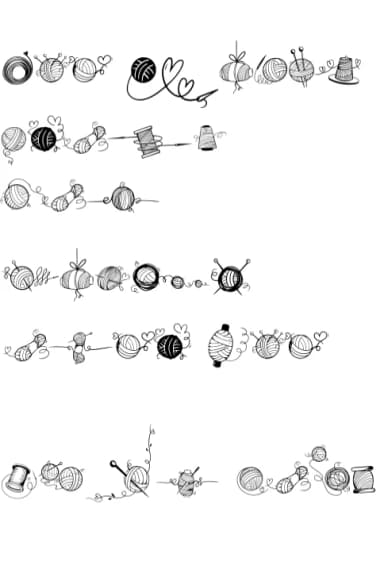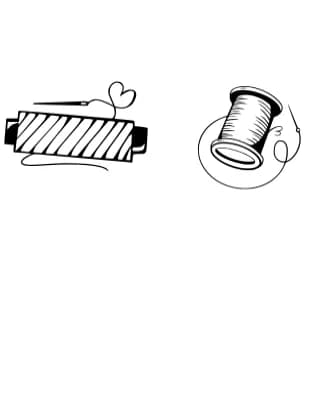
You're laying out a scrapbooking spread and need decorative ornaments that feel handmade and cozy. Lovely Yarn, designed by onoborgol, delivers exactly that with its collection of hand-drawn dingbats inspired by thread, yarn, and craft elements. These aren't just generic flourishes, they're thoughtfully sketched details that capture the texture and personality of yarn-based crafts.
The font shines in specific applications where that handcrafted warmth genuinely matters. Knitting pattern annotations benefit immediately from its playful marks, while craft greeting cards gain character when you layer these elements as borders or corner decorations. Scrapbooking spreads come alive with these yarn-themed ornaments, and DIY embroidery guides use them effectively to highlight sections and add visual flow without overwhelming the actual content. If you work with small batches of handmade items or run an online shop, consider using these dingbats to create custom sticker designs or tag variations for your packaging and product labels.
Placed alone or clustered together, Lovely Yarn holds its charm across any layout. The hand-drawn quality means each mark has genuine character, not that sterile, digital perfection that reads as impersonal and soulless. Get it on Creative Fabrica and start using these ornaments to add warmth and authenticity to craft-focused projects.
Lovely Yarn Font